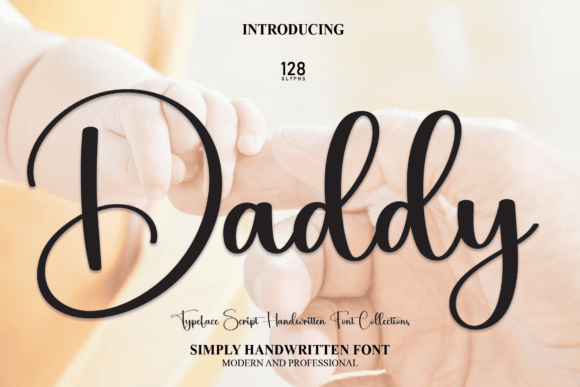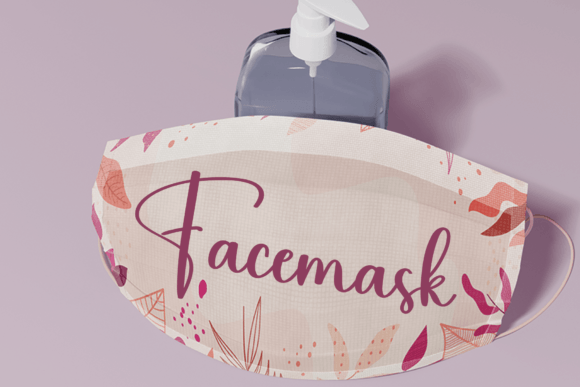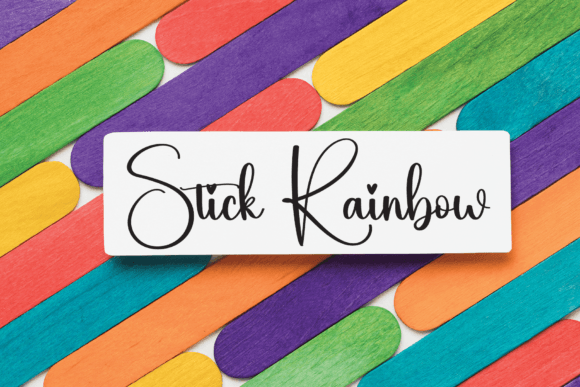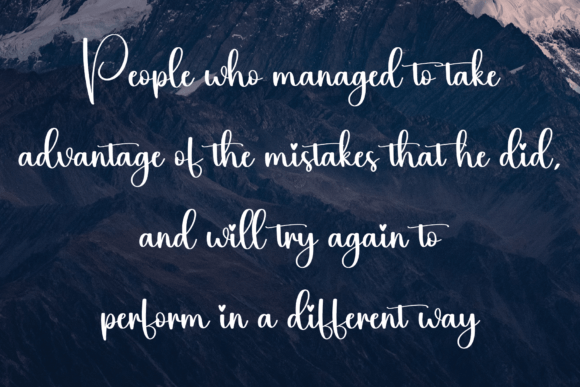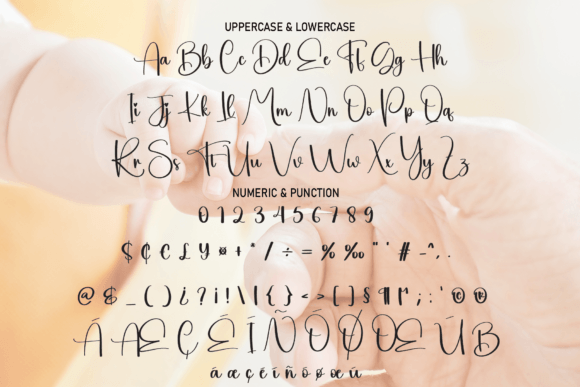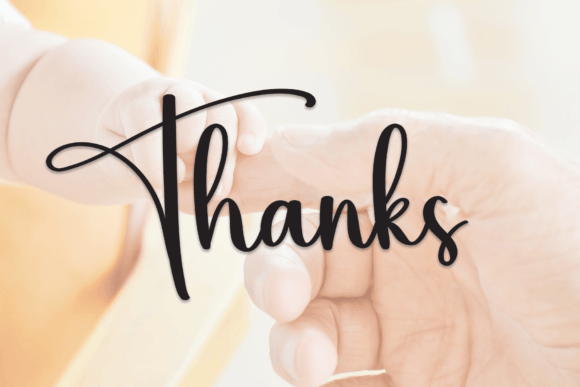
Daddy Font
What Is Daddy Font?
Daddy Font is a sweet and lovely handwritten script designed to bring warmth and joy to your creative projects. Its smooth lines and playful curves make every design feel welcoming and personal. Each letter flows naturally, creating a sense of balance and harmony that draws attention without feeling overwhelming.
This typeface combines modern style with gentle character, making it perfect for projects that need a touch of romance and cheerfulness.
Daddy Font is versatile and works well in many applications. For example, it looks beautiful on wedding invitations and save-the-date cards. The handwritten style helps set a romantic tone that guests will remember.
If you design greeting cards for birthdays, anniversaries, or holidays, this font adds a personal and heartfelt feel. Every message becomes more meaningful with Daddy Font’s graceful letters.
Brands also use this font in logos and product packaging. Small businesses and creative studios appreciate how it creates a friendly, approachable image. Whether you run a bakery, a handmade shop, or a boutique, Daddy Font helps your products stand out.
Additionally, you can use it on social media graphics to make your posts more engaging. Quotes, announcements, and promotions look cohesive and professional with this handwritten script.
Why Should You Choose Daddy Font?
Another benefit is its versatility. You can pair Daddy Font with simple serif or sans-serif typefaces to balance its decorative style. This combination keeps your designs clean and easy to read while adding personality.
Designers love how Daddy Font saves time. Each character is carefully crafted to look polished, so your projects feel complete right away.
Daddy Font helps your work feel genuine and thoughtful. The handwritten style creates a strong connection with your audience, which is important for products and designs that celebrate special moments.
The flowing strokes also add a joyful and romantic touch. Even simple layouts gain depth and charm when you use this font.
Using high-quality typography like Daddy Font shows that you value detail and care. Clients and customers will notice this effort, helping you build trust and strengthen your brand’s image.
Daddy Font is more than just a sweet script typeface—it’s a creative tool that helps you share your ideas with warmth and style. From wedding invitations to logos and social media graphics, this font adapts to many uses and makes your work shine.